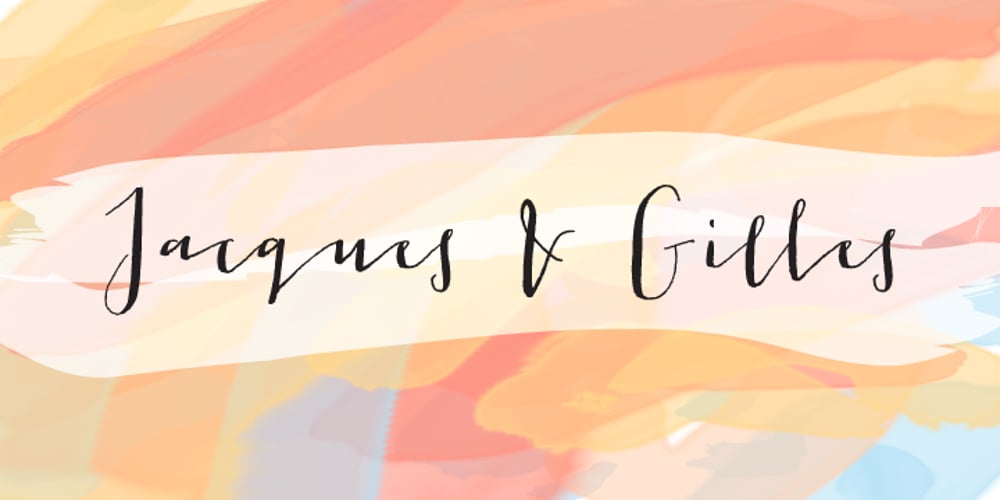
Jacques & Gilles
Jacques & Gilles font
Jacques & Gilles Font Family was designed by Emily Conners and published by Emily Lime. Jacques & Gilles contains 1 styles and family package options. There are two “personalities” in this font. Jacques’ persona comes to life when typing in all lowercase letters. And Gilles’: when using all uppercase. And the best part is Jacques and Gilles were made for each other. J&G features 300+ glyphs including terminal letters, alternates, ordinals, roman numerals (I,V,X) and 2 sets of ornaments – 1 outline & 1 solid so you can create a cool, modern painted effect.